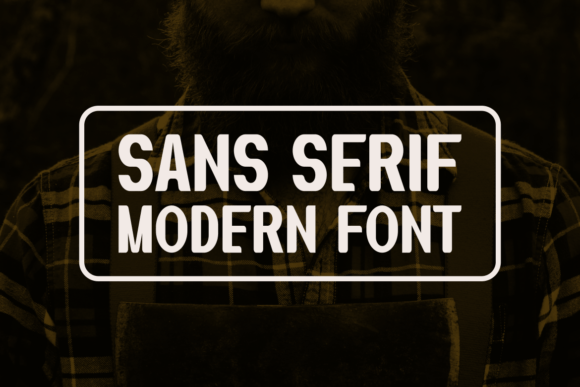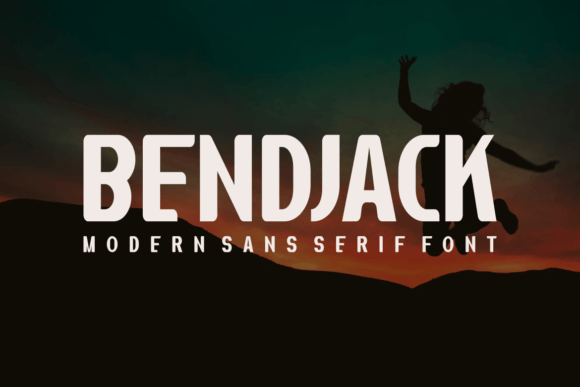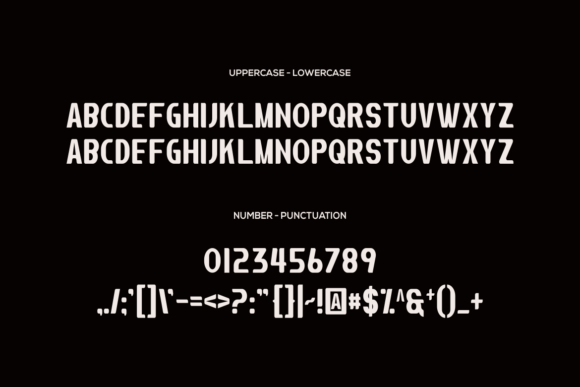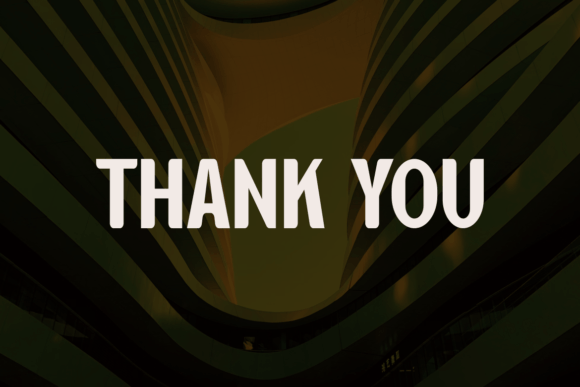
Bendjack Font: Elevate Your Designs with a Bold and Assertive Sans Serif
In the world of typography, fonts play a crucial role in conveying messages, expressing emotions, and creating visual identities. For designers, crafters, and marketers, finding the right font can make all the difference in their creative projects. If you’re on the hunt for a bold and assertive sans serif font that can elevate your designs, look no further than Bendjack Font. In this article, we’ll dive into the features, benefits, and uses of Bendjack Font, and explore why it’s a must-have addition to your font library.
What is Bendjack Font?
Bendjack Font is a modern sans serif font designed to make a statement. Its bold and assertive style makes it perfect for headlines, titles, and any design project that requires a strong visual impact. With its clean lines, geometric shapes, and confident demeanor, Bendjack Font is sure to grab attention and leave a lasting impression.
Key Features of Bendjack Font
- Bold and Assertive: Bendjack Font is designed to be bold and assertive, making it perfect for designs that require a strong visual impact.
- Sans Serif: The font features a clean and minimalist sans serif style, making it easy to read and versatile for various design applications.
- Geometric Shapes: The font’s geometric shapes give it a modern and edgy feel, making it perfect for designs that require a contemporary look.
- Clean Lines: The font’s clean lines and precise curves make it easy to read and understand, even at small sizes.
Benefits of Using Bendjack Font
So, why should you choose Bendjack Font for your design projects? Here are just a few benefits of using this versatile font:
- Elevate Your Designs: With Bendjack Font, you can add a touch of sophistication and elegance to your designs, making them stand out from the crowd.
- Versatility: The font’s sans serif style and geometric shapes make it versatile for various design applications, from print to digital.
- Easy to Read: The font’s clean lines and precise curves make it easy to read, even at small sizes.
- Time-Saving: With Bendjack Font, you can save time and effort in finding the perfect font for your design projects.
Use Cases for Bendjack Font
Bendjack Font is perfect for a wide range of design projects, including:
- Headlines and Titles: Use Bendjack Font to create bold and attention-grabbing headlines and titles for your designs.
- Branding and Identity: The font’s unique style makes it perfect for creating logos, business cards, and other branding materials.
- Advertising and Marketing: Use Bendjack Font to create eye-catching ads, posters, and marketing materials that grab attention.
- Digital Design: The font is perfect for digital designs, including website headers, social media graphics, and more.
In conclusion, Bendjack Font is a bold and assertive sans serif font that can elevate any design project. With its clean lines, geometric shapes, and confident demeanor, it’s perfect for designers, crafters, and marketers looking to make a statement. Whether you’re working on a print or digital project, Bendjack Font is a versatile and easy-to-use font that can help you achieve your creative goals. So why wait? Add Bendjack Font to your font library today and take your designs to the next level!
Whether you’re a seasoned designer or just starting out, Bendjack Font is a must-have addition to your font collection. Its unique style and versatility make it perfect for a wide range of design projects, from branding and advertising to digital design and more. So why not give Bendjack Font a try and see how it can elevate your designs?